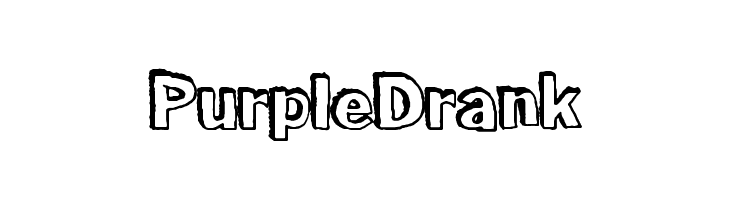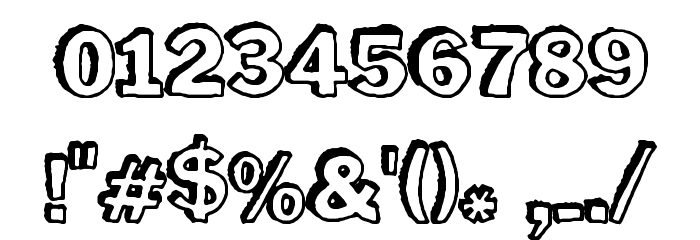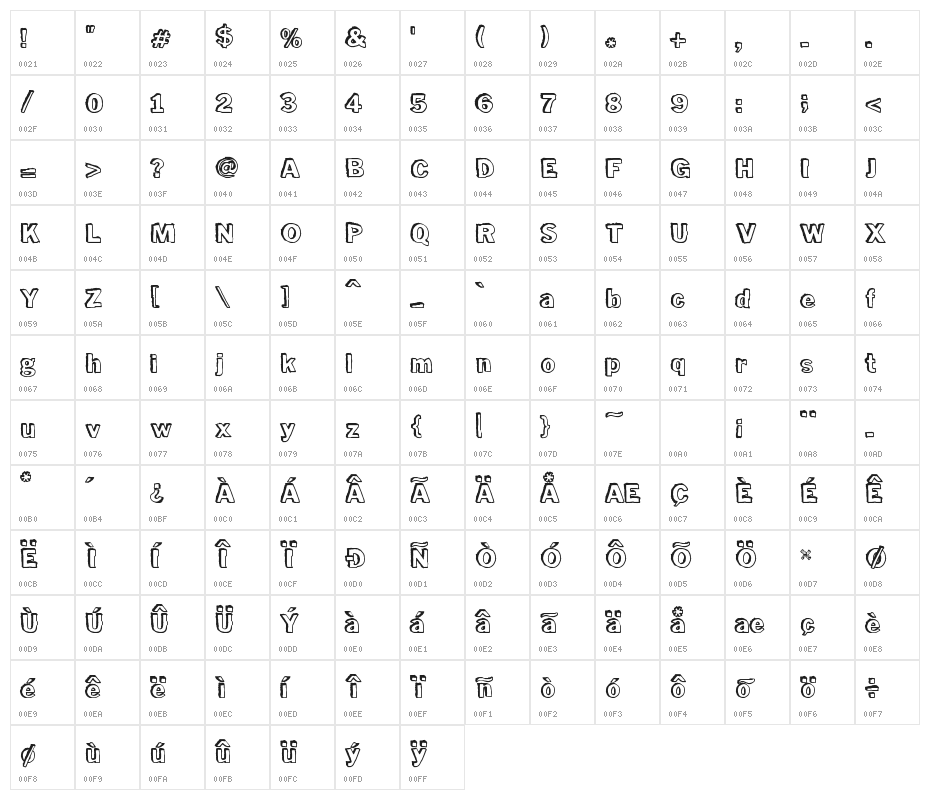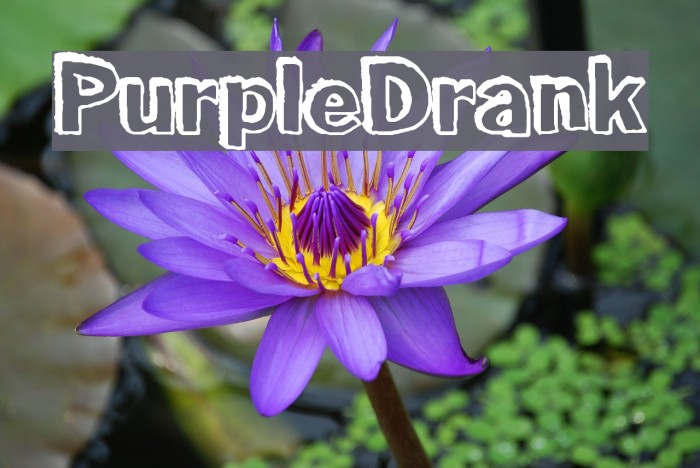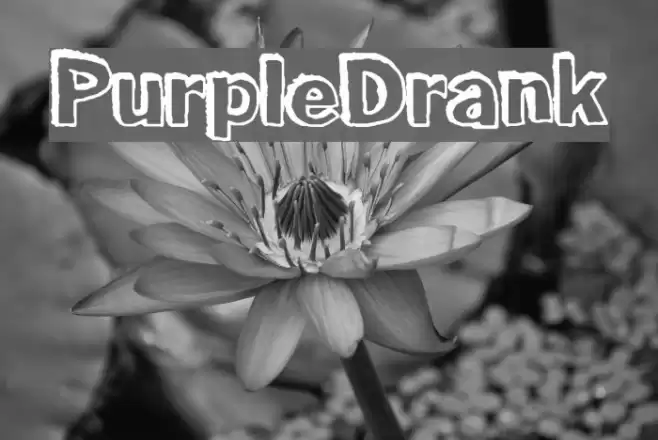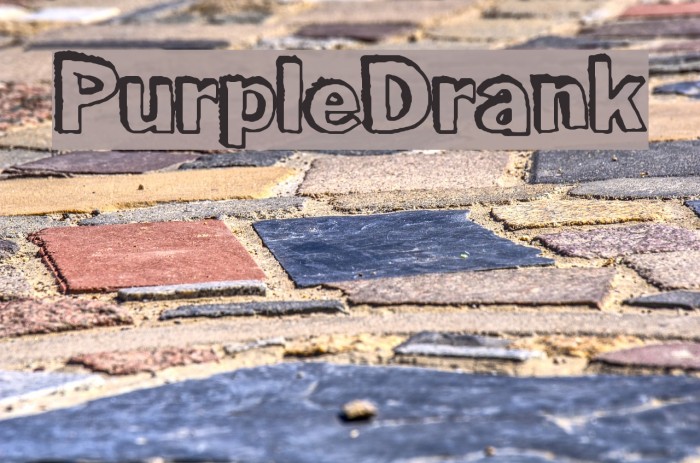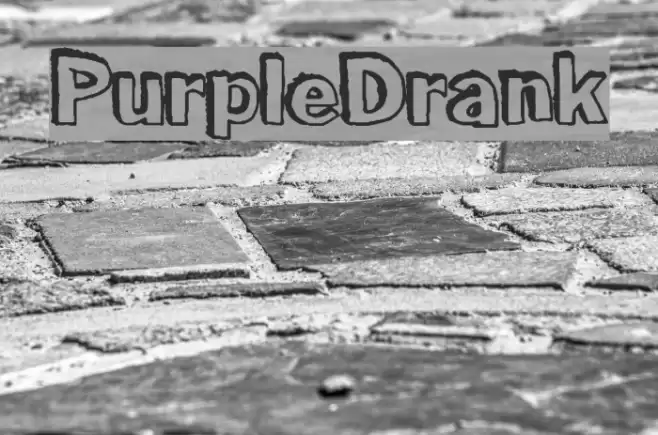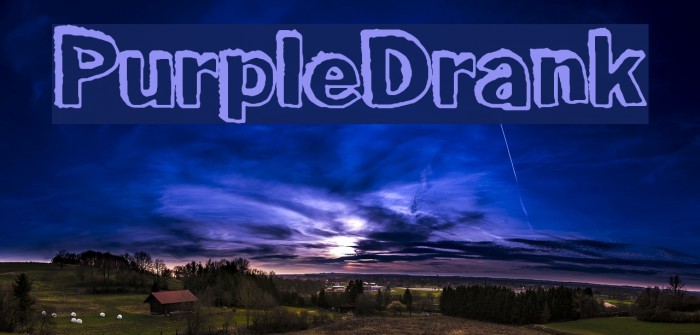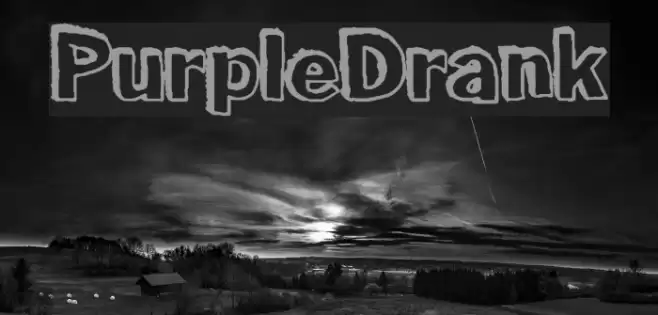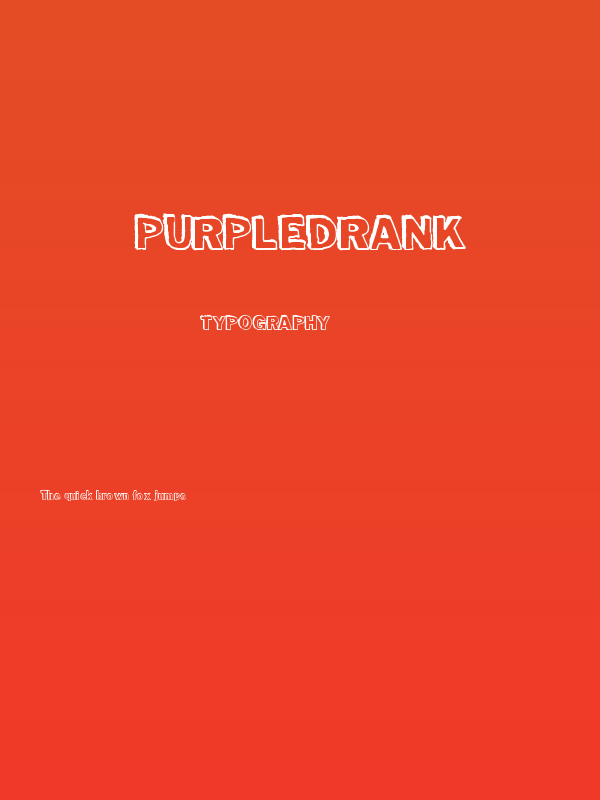
PurpleDrank Font
PurpleDrank Description
This font features a bold, playful style with a hand-drawn appearance. The letters have a thick outline that adds a sense of depth and dimension, making them stand out prominently. Each character is slightly irregular, giving it a casual and informal feel. The uppercase and lowercase letters maintain a consistent style, with rounded edges and a slightly whimsical touch. The numbers and special characters follow the same design principles, ensuring a cohesive look across all elements. This font is ideal for projects that require a fun, eye-catching aesthetic.
| Overall Style | Playful, Casual |
| Proposed Projects | Ideal for children's books, comic strips, playful branding, and eye-catching posters. |